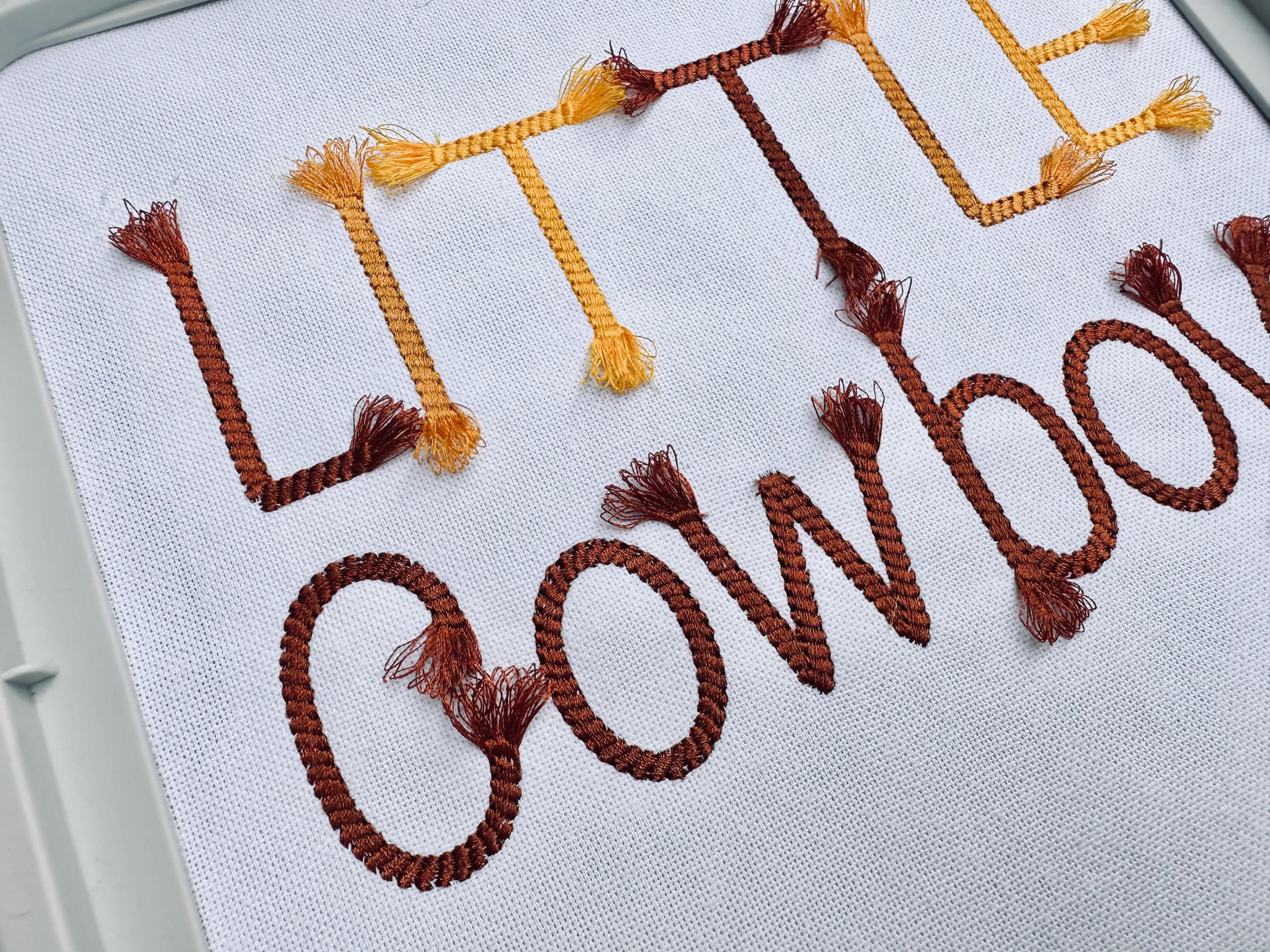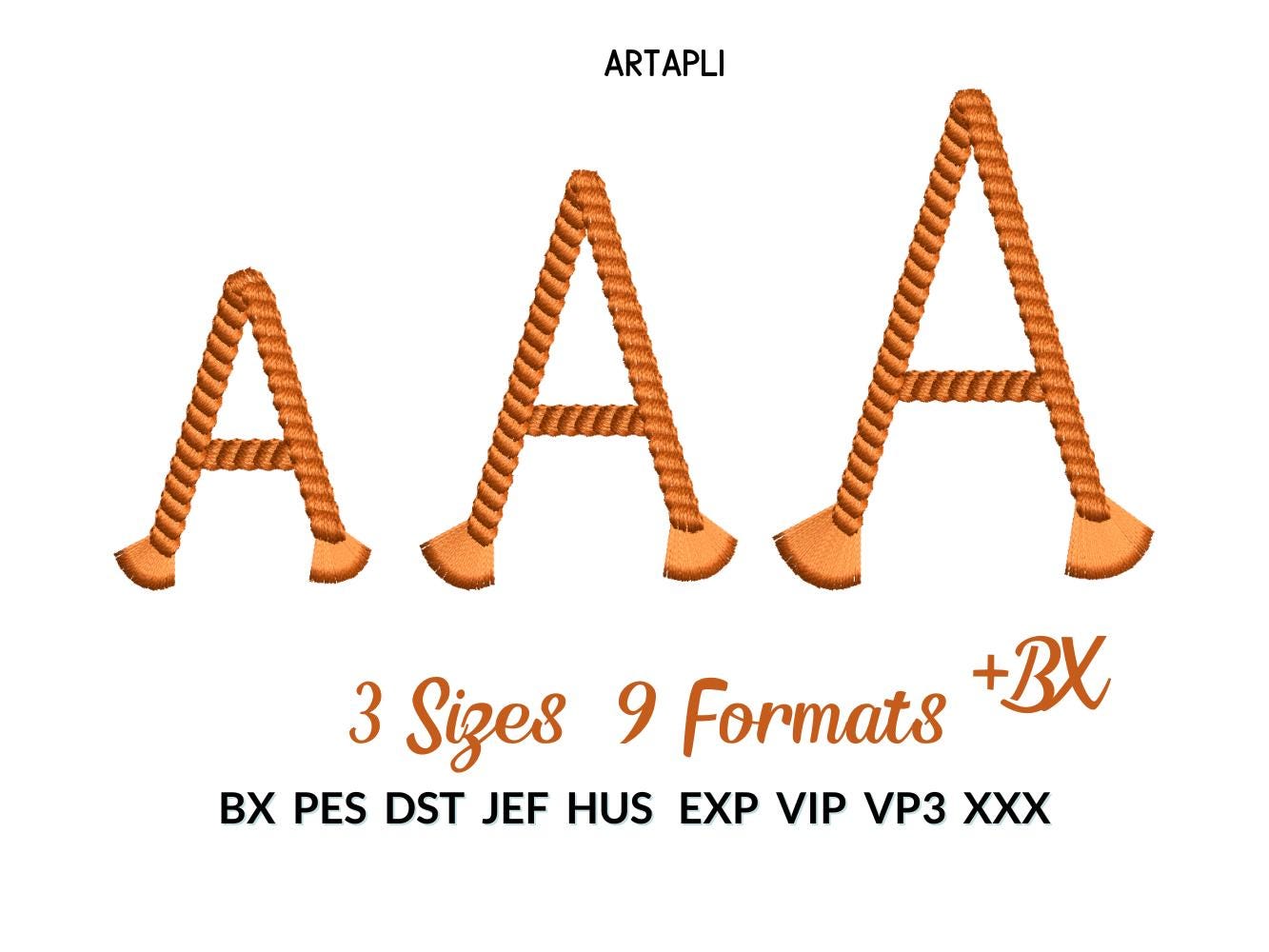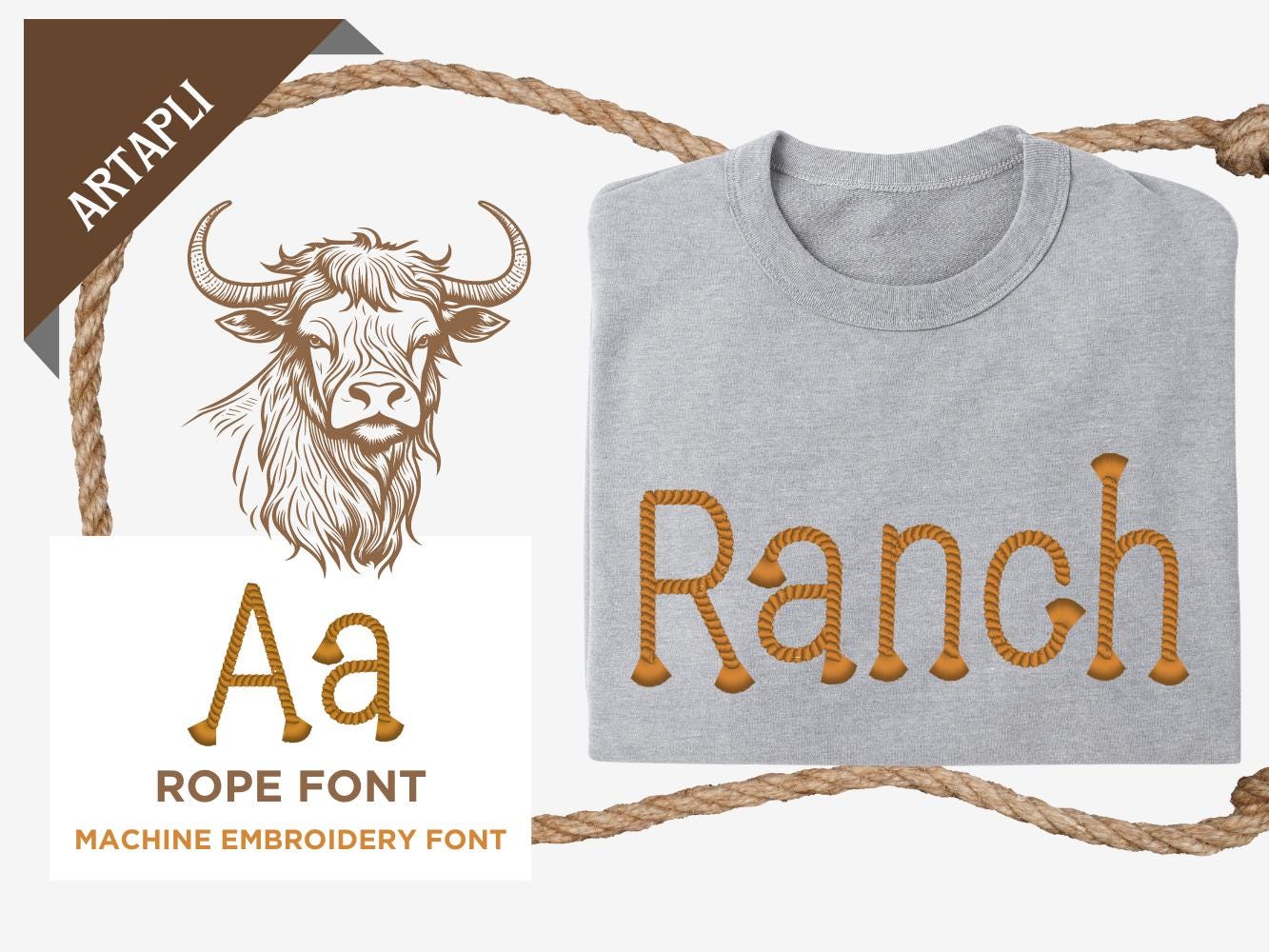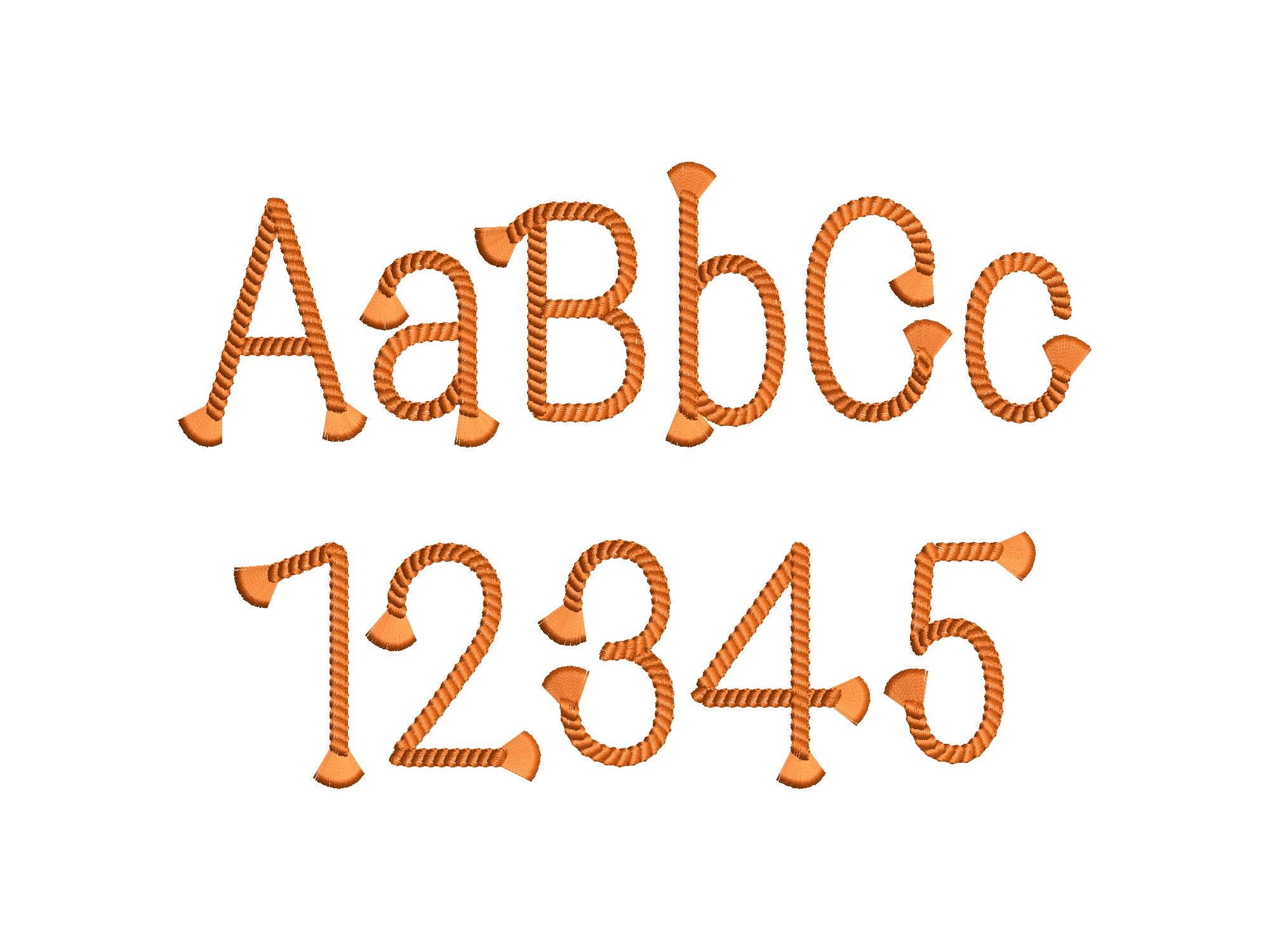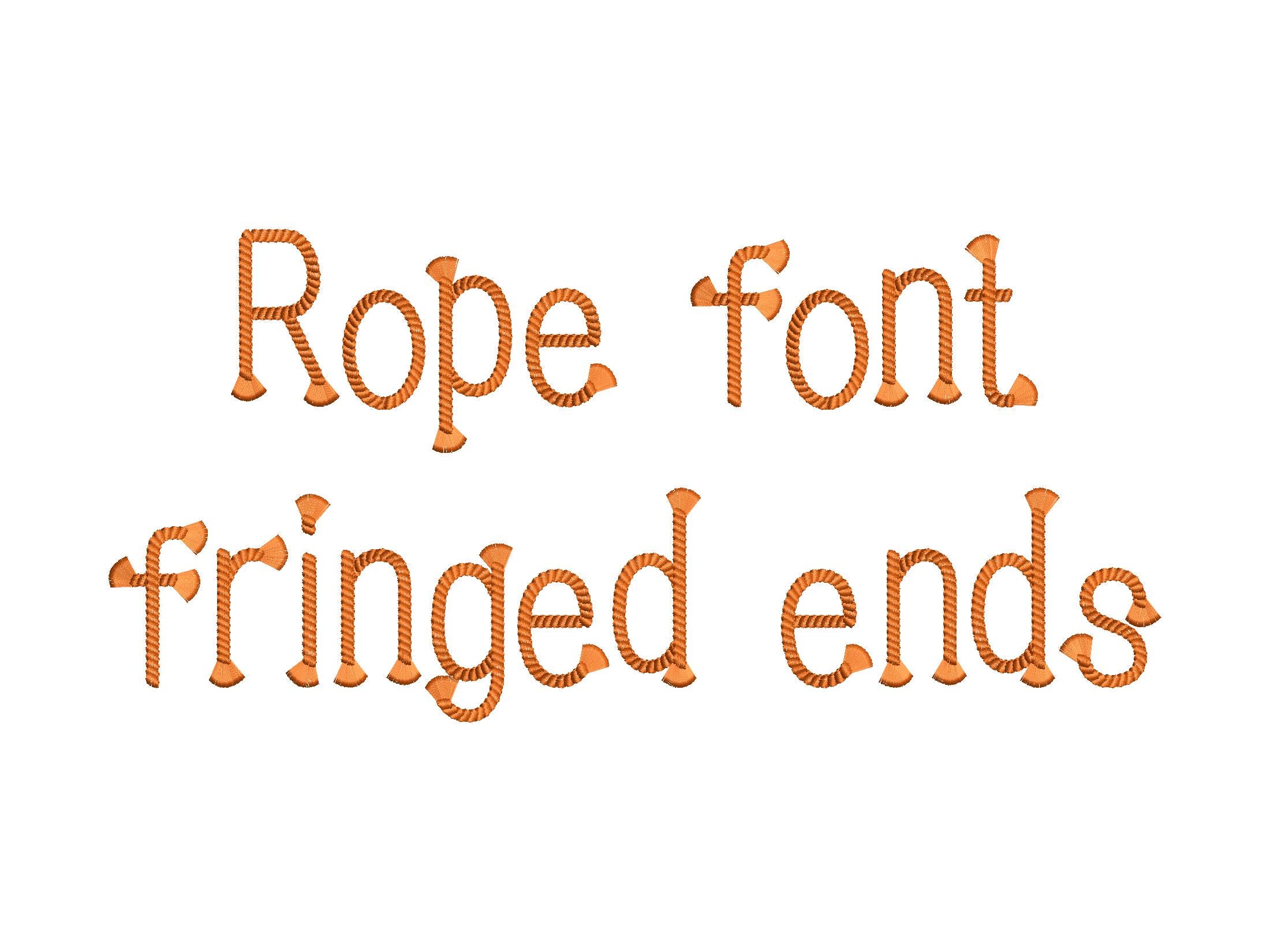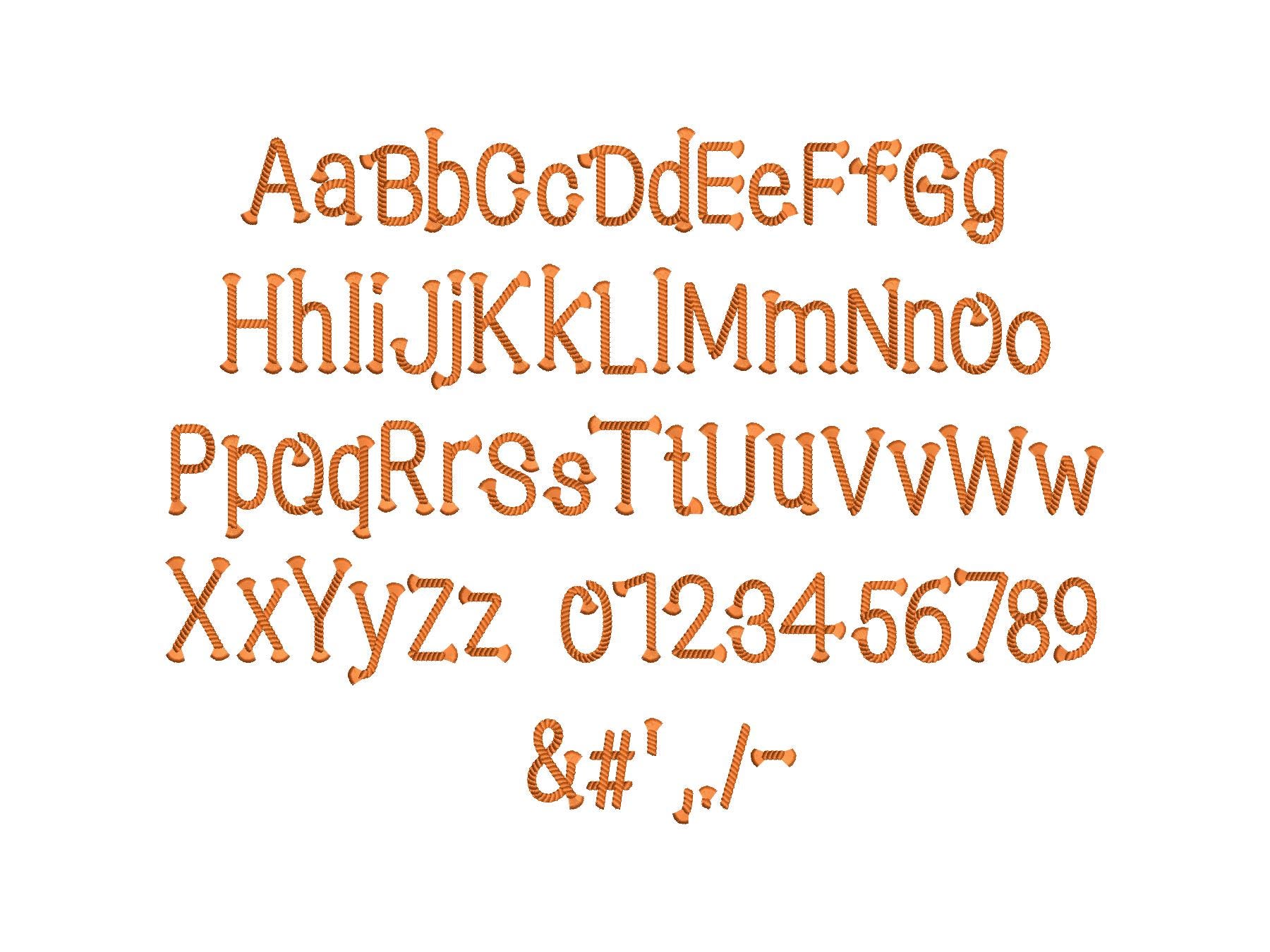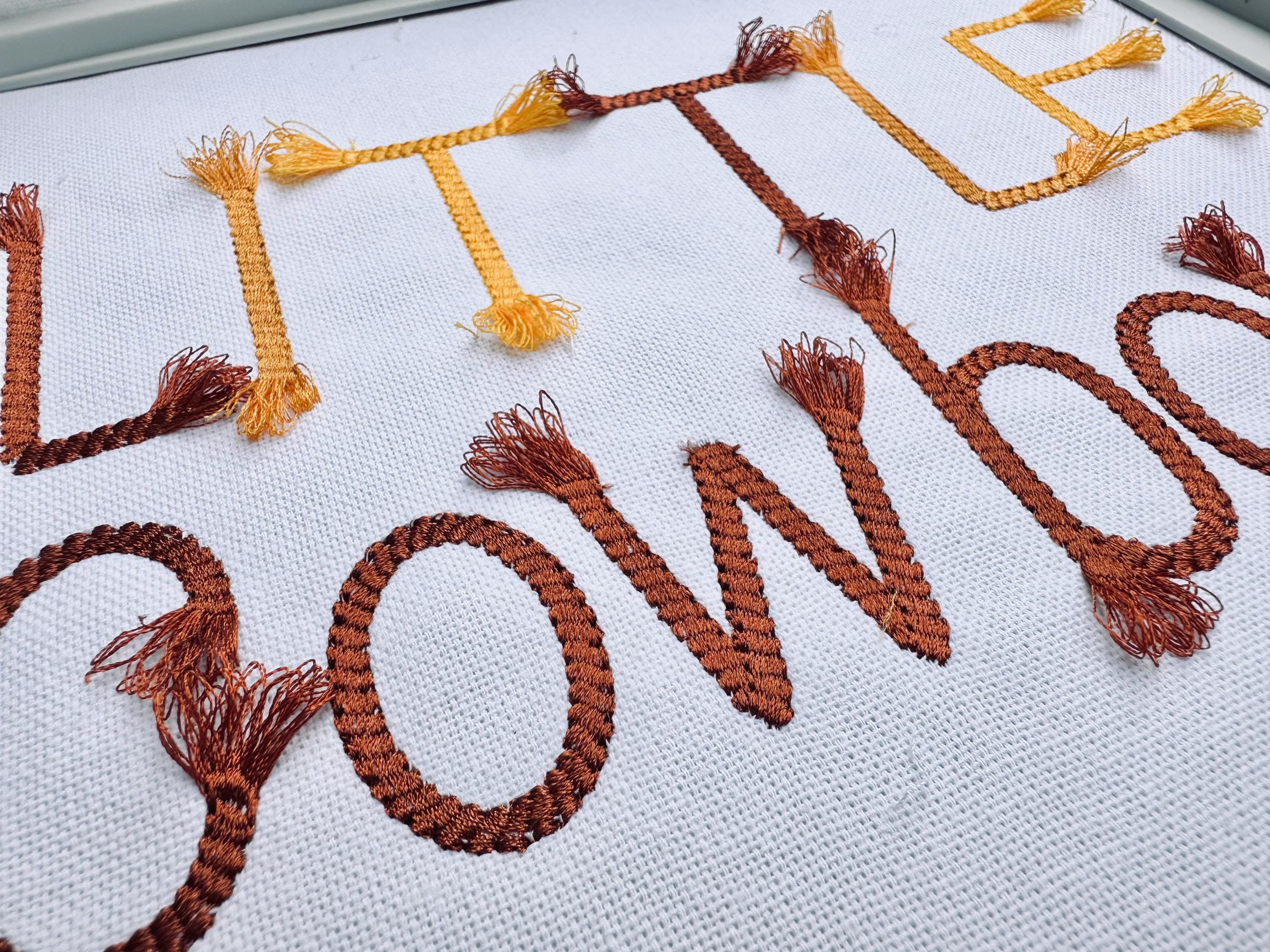
Rope Block FONT fringed tassel end alphabet letters and numbers machine embroidery designs cowboy cowgirl kids Rodeo lasso rope monogram and BX included
Entire alphabet: uppercase and lowercase letters Aa-Zz, numbers 0-9, and punctuation.
Add a touch of Western flair to your projects with this Rope Font alphabet, complete with letters and numbers. Featuring fringed ends, this design is perfect for cowboy and cowgirl-themed items, Texas-inspired decor, and lasso-style monograms. Ideal for customizing kids' names, rodeo gear, and more!
The design has a special seam holding fringe in place.
It is easy. Embroider the design as usual. Large satin stitches will be loose. Once you complete stitching the design, turn over your hoop to see a reverse side, and cut the bobbin thread, along the large satin stitches. Turn the hoop back over and fluff up the "fringe" around.